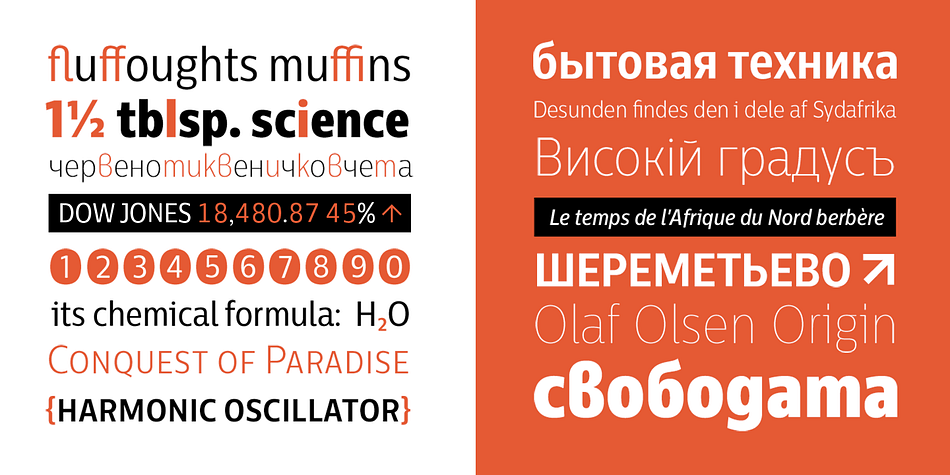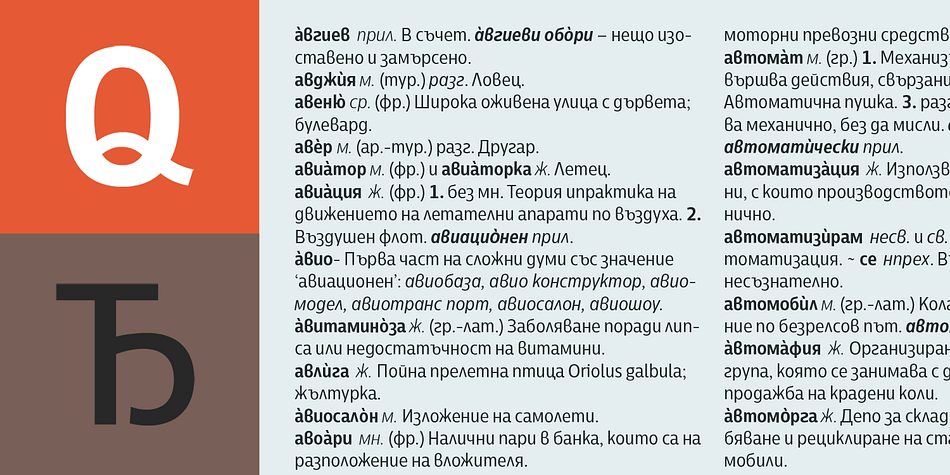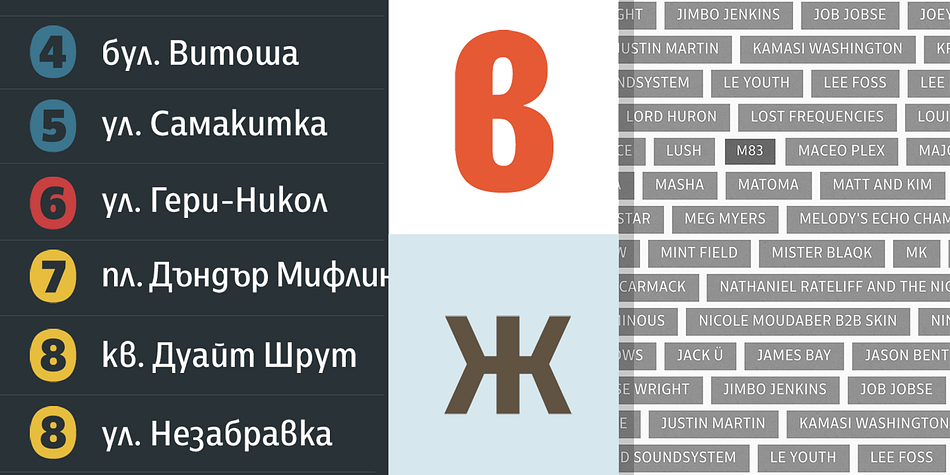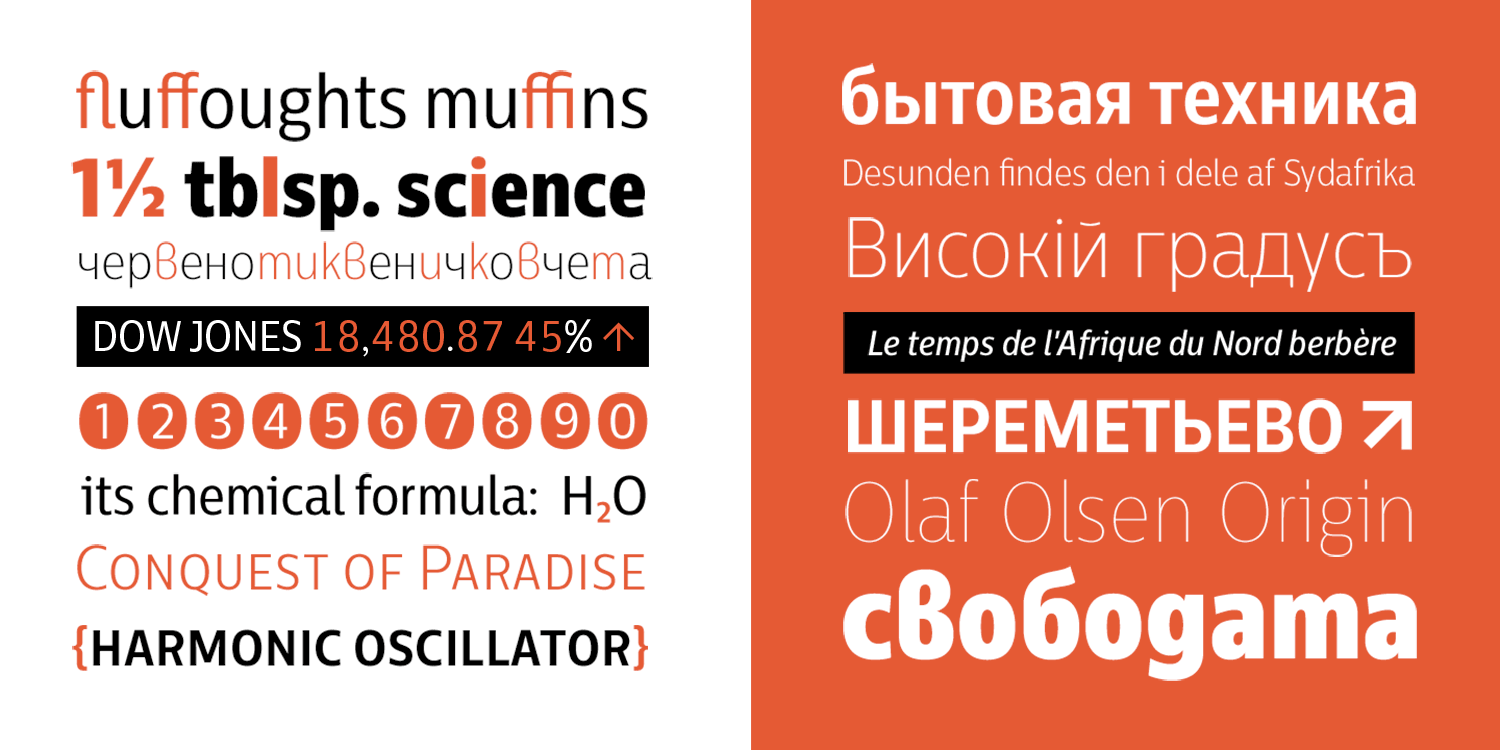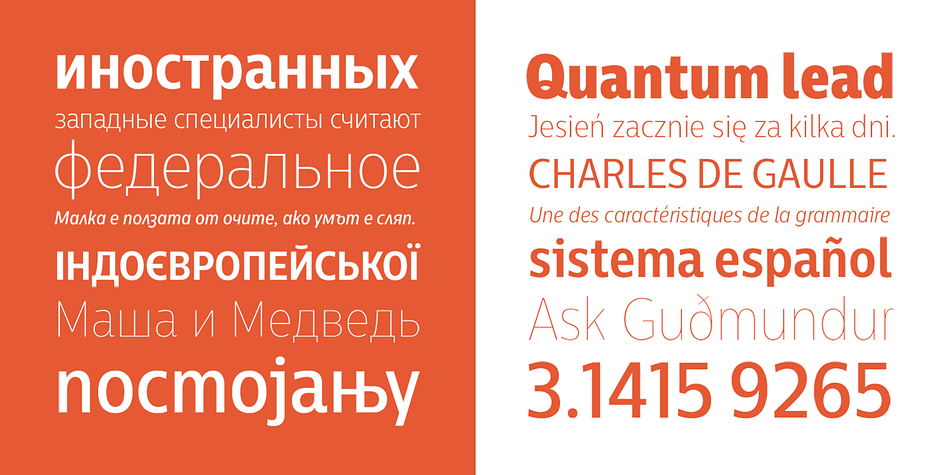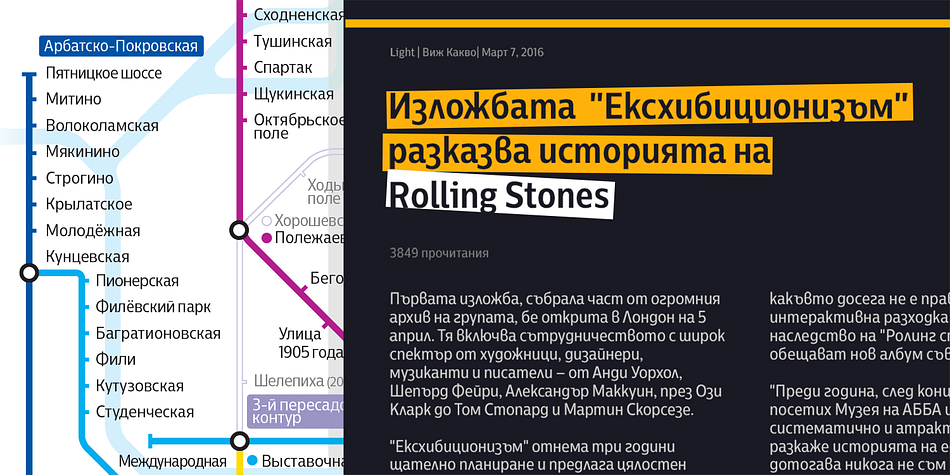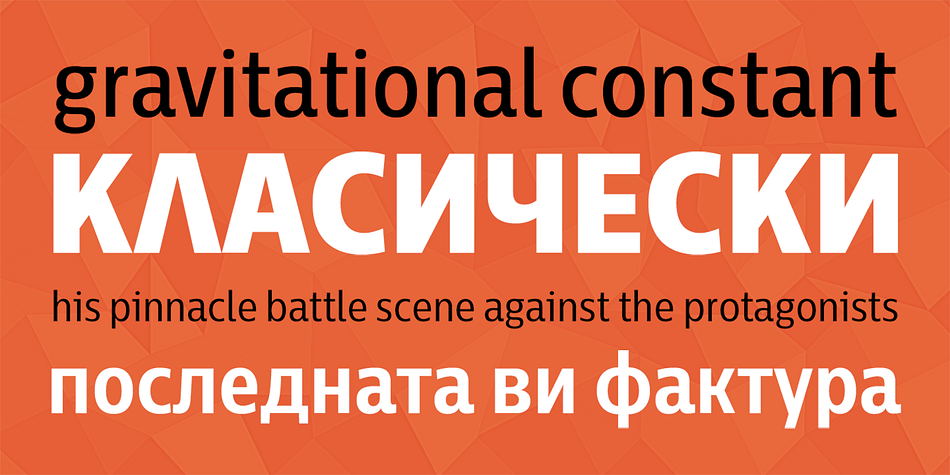
Centrale Sans Condensed Pro is a sans serif font family. This typeface has eighteen styles and was published by Typedepot.
Here comes the updated Pro version of Centrale Sans Condensed – not just a “squished” version of the normal Centrale Sans but designed from scratch with all the family characteristics in mind – combination of the grotesque and the humanist models, open apertures and large x-height. It looks a bit friendlier than Centrale Sans because of its closer relation to the humanist model.
Being 15% narrower, it is a precious space-saving tool in those cases you need your text tight but still readable – dictionaries, maps, etc. It comes in nine weights from Hairline to Extra Bold, giving you a wide range of uses – the thins and the extra bold for display, and the light, book and medium for text.
The Pro version comes with Cyrillic support for Russian, Belarusian, Serbian, Macedonian, Ukrainian and Bulgarian, covering the needs of more than 200 million Cyrillic users. Bulgarian localisation is included as an OpenType feature.
Including an arsenal of OpenType features like small caps, tabular lining figures, arrows, stylistic sets, a bunch of different numerals and more than 900 glyphs. Centrale Sans Condensed is the workhorse that will do its job no matter if it’s crumpled or used as a display typeface.